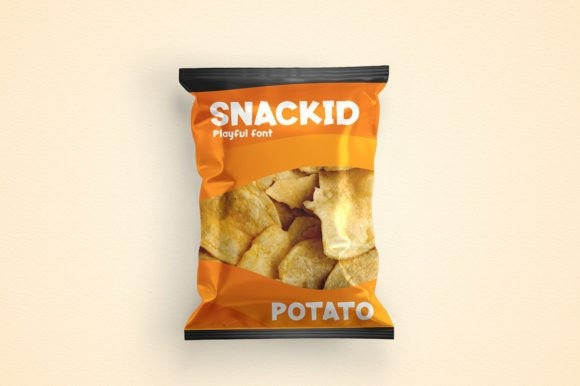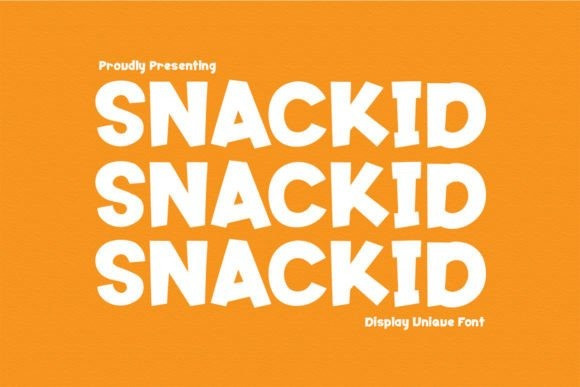
Snackid Display Font
Snackid Display Font is a unique display font that will make it easier to convey your message in your design. It is perfect for food-related products, children’s activities, kids’ illustrations, book titles, websites, writing on video, graphic design, and many more!